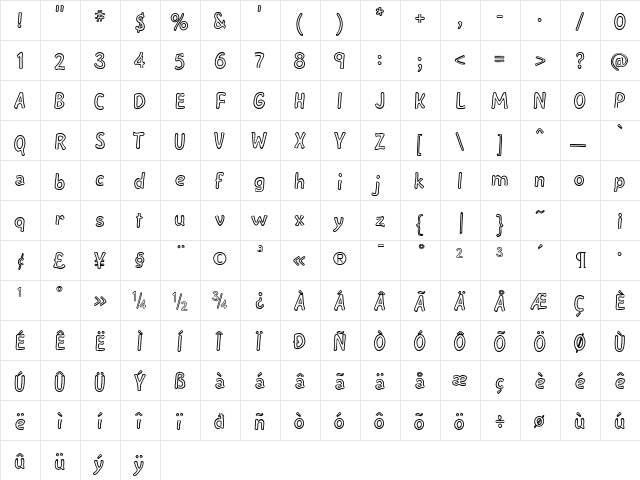
MushmellowOutline Regular Font Preview
MushmellowOutline Regular
Design Context for MushmellowOutline Typeface
MushmellowOutline is built around its visual character rather than neutral utility — its distinctive forms are designed to make an impression at display sizes.
Font Pairing: Pair with a clean neutral sans-serif for body copy to let MushmellowOutline's character lead without overwhelming the composition.
Pro Tip: Treat MushmellowOutline as the centrepiece of your typographic hierarchy. One strong heading set in a decorative face can carry an entire layout.